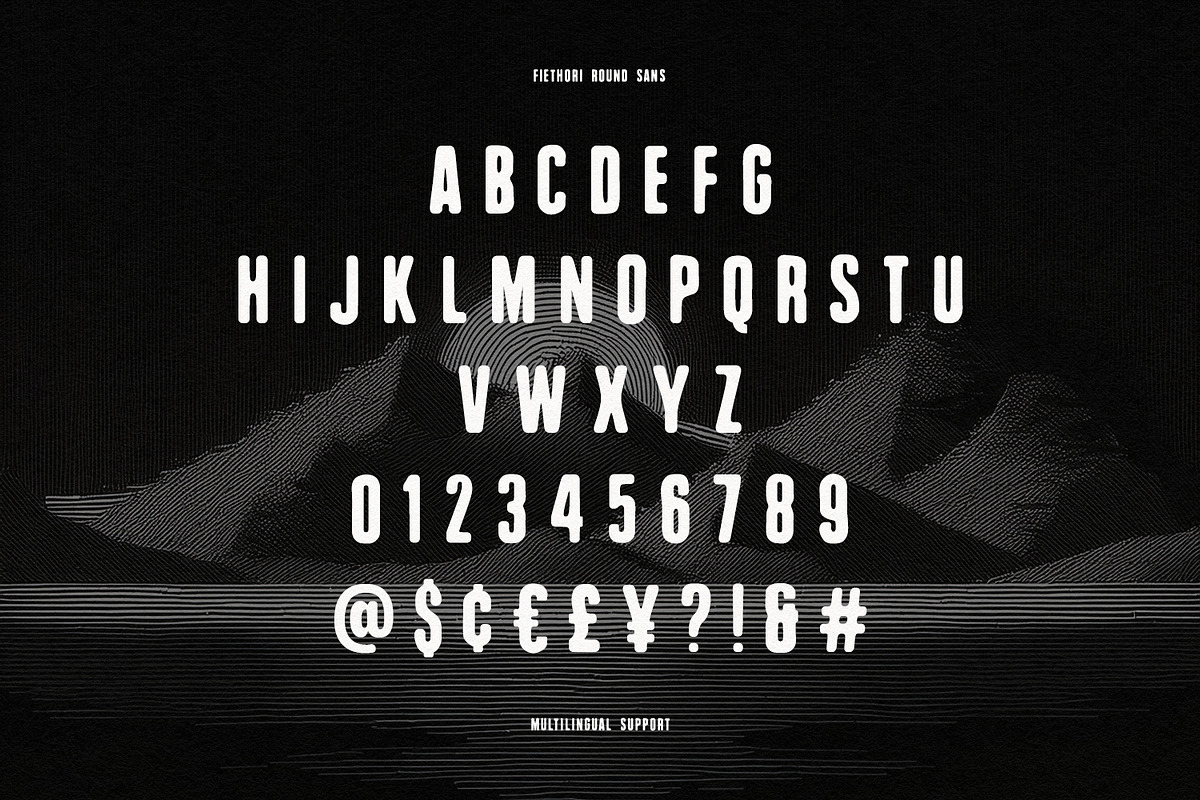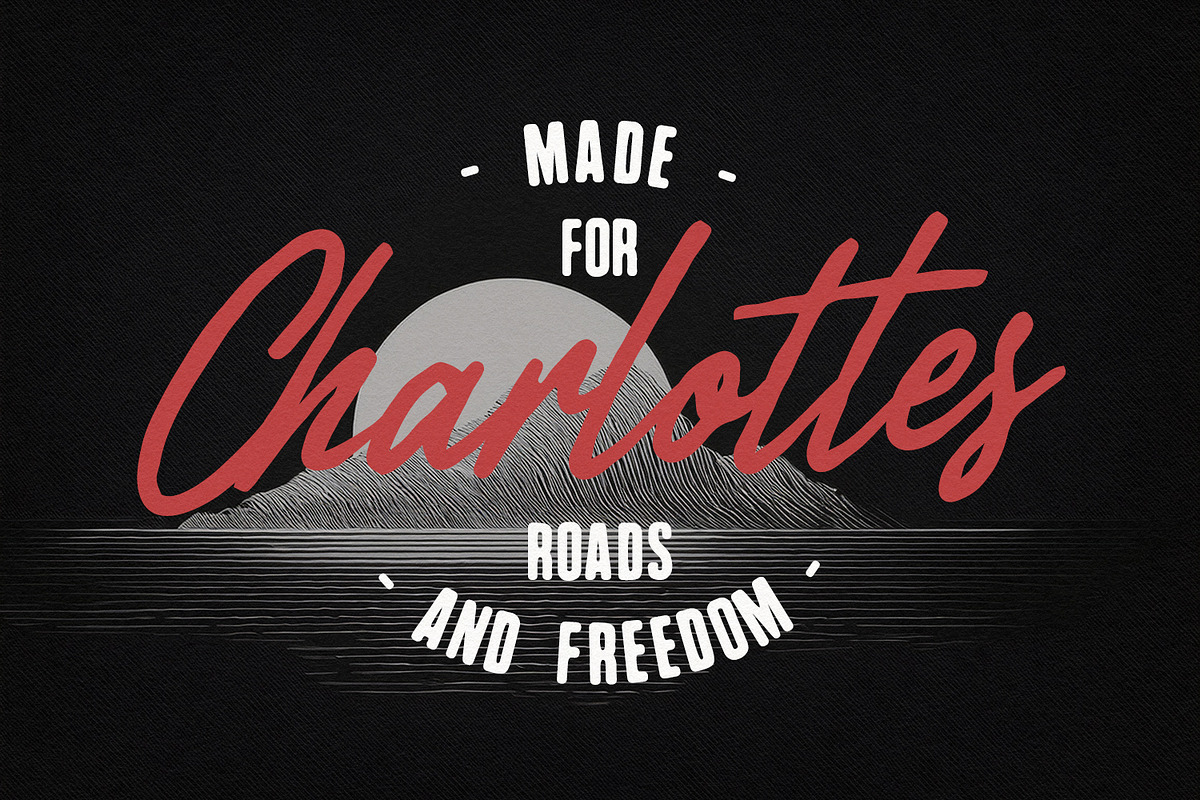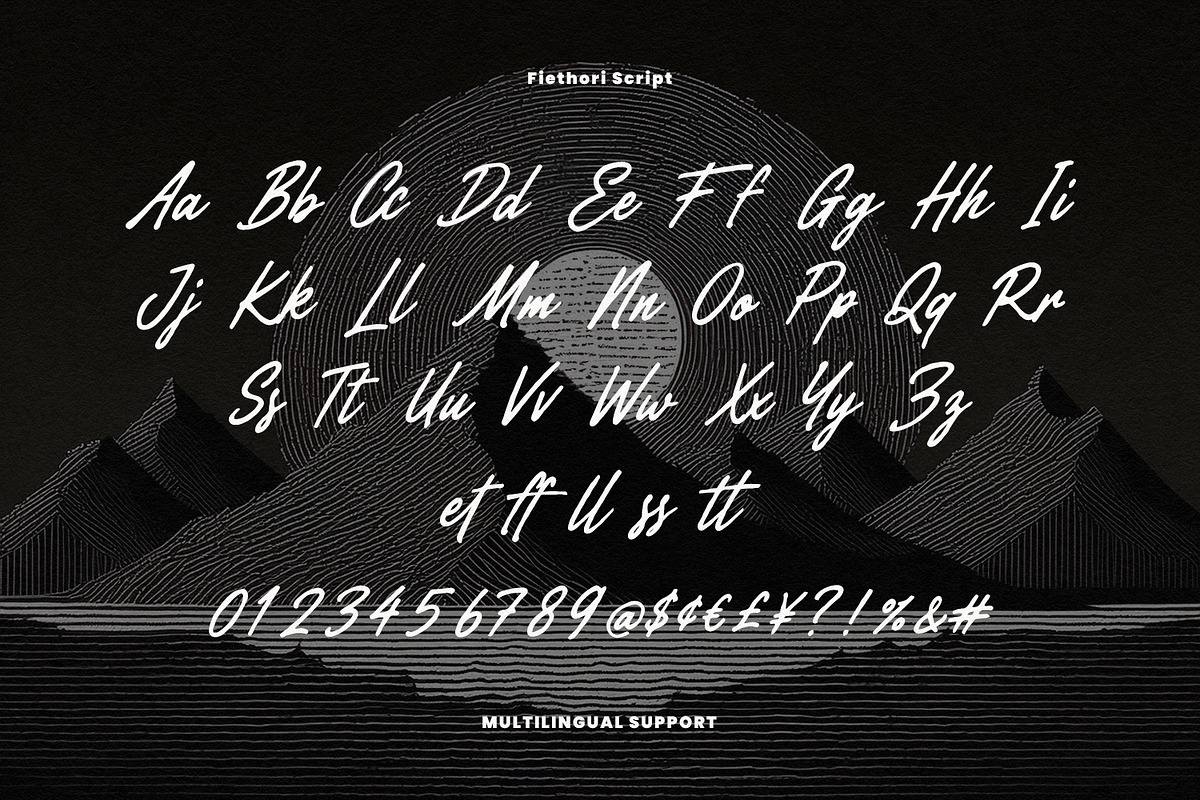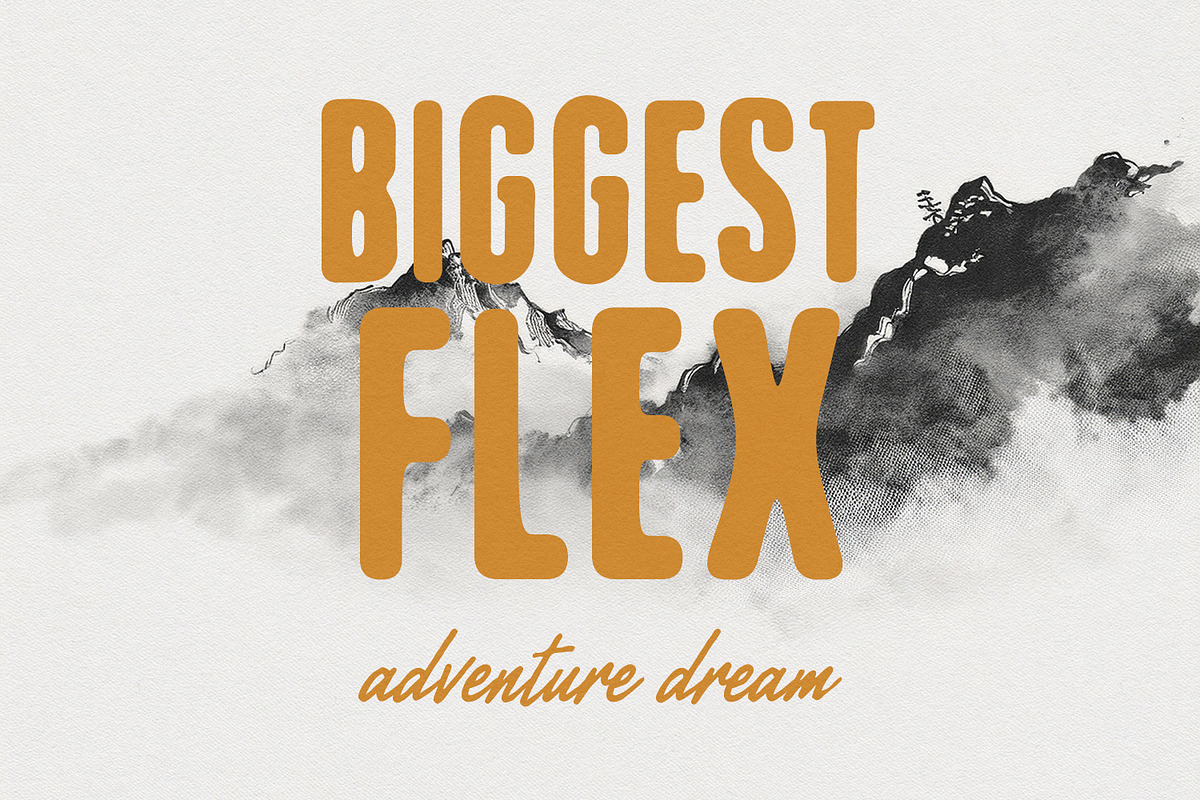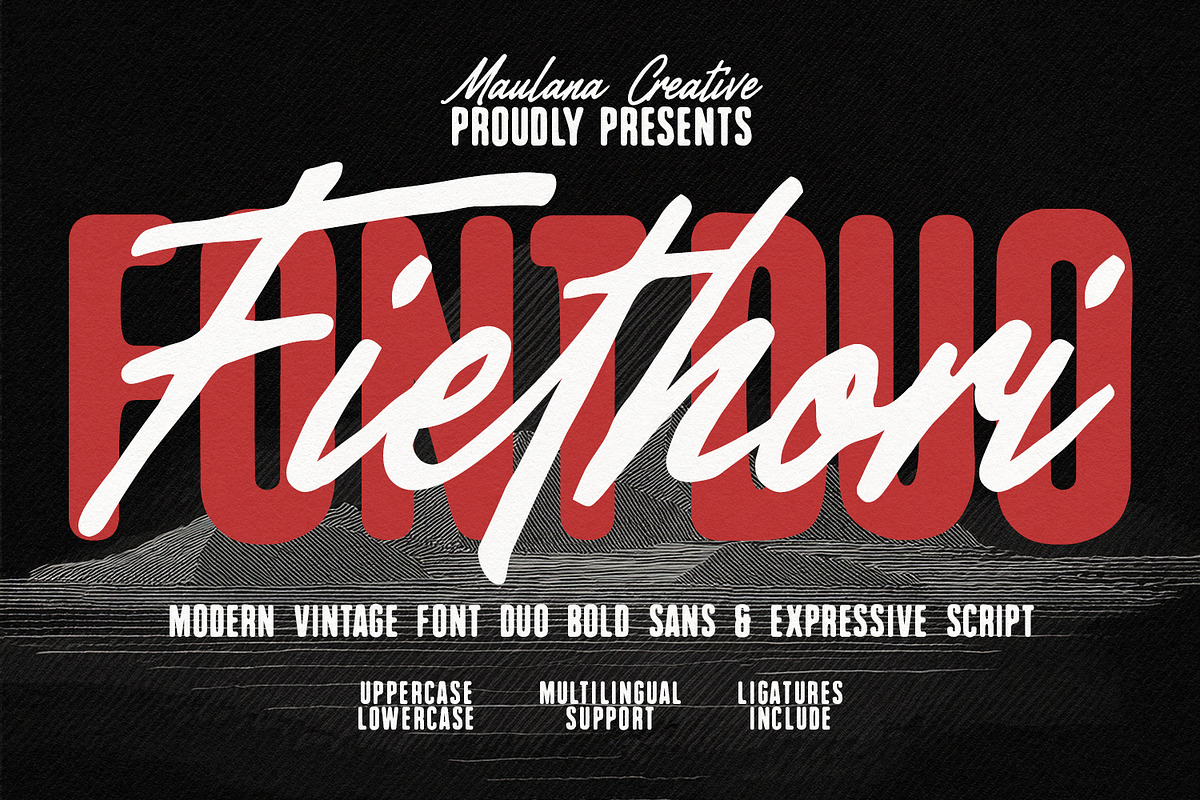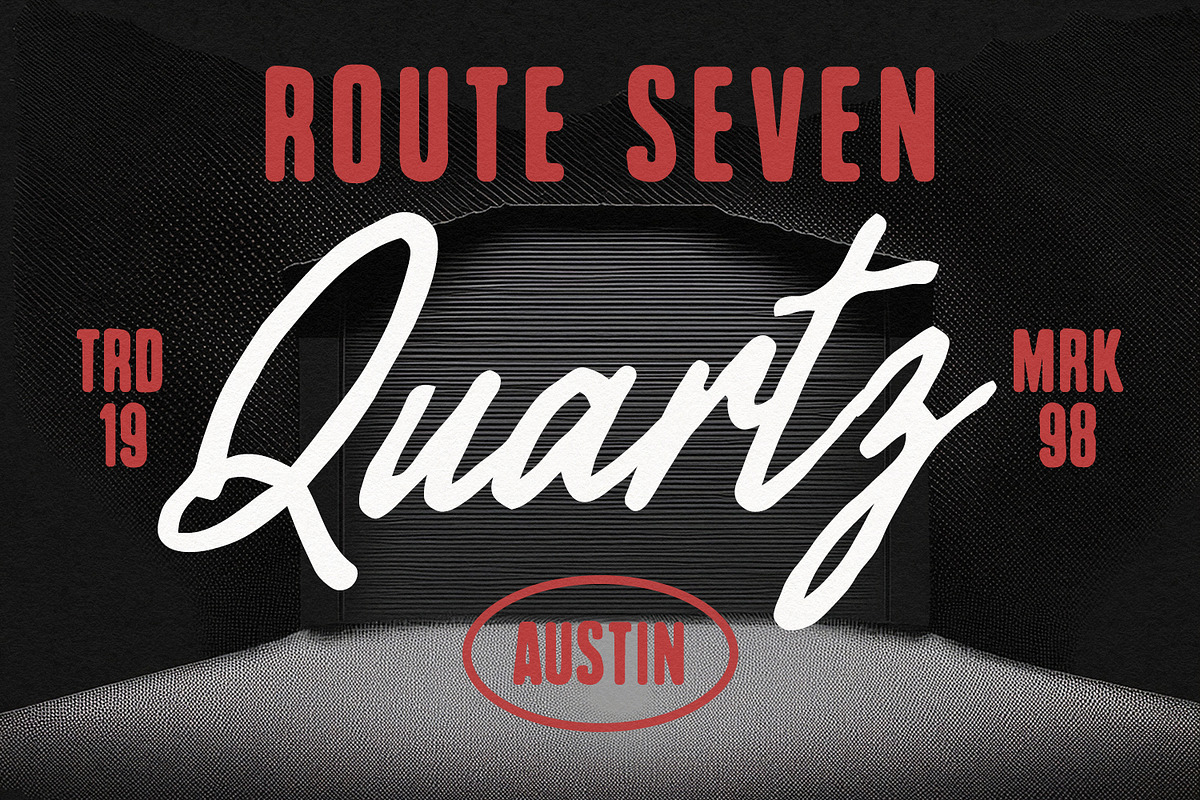
Fiethori Duo Sans Expressive Script
Fiethori is a dynamic font duo featuring a bold, clean sans-serif paired with an expressive, handwritten script font. Designed to complement each other seamlessly, this combination brings a powerful yet organic touch to creative projects, offering striking contrast and versatile typographic hierarchy.
Equipped with uppercase and lowercase letters, numerals, symbols, and ligatures, Fiethori supports multilingual characters for global versatility. It is an ideal choice for branding, poster designs, logotypes, packaging, badges, quote graphics, and modern vintage visual layouts.